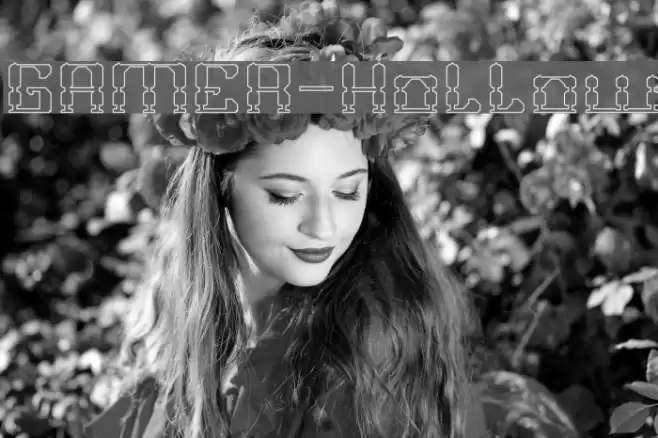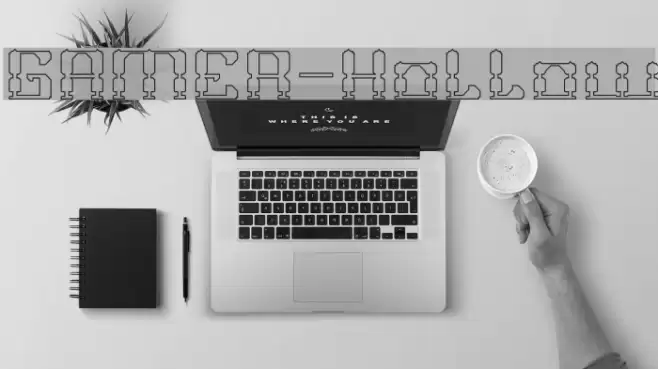
GAMER-Hollow Font
GAMER-Hollow Description
This font features a hollow, geometric design with a distinct, futuristic appeal. The characters are outlined with a consistent stroke width, creating a bold and eye-catching appearance. Each letter and number is constructed with angular, mechanical elements, giving it a tech-inspired look. The uppercase and lowercase letters maintain a uniform style, while the numerals and special characters complement the overall design. The font's unique structure makes it ideal for projects that require a modern and digital aesthetic.
A hollow, geometric font with a futuristic, tech-inspired design from Uncategorized fonts.
- Proposed Projects: Ideal for video game titles, tech-related branding, digital artwork, and futuristic-themed posters.